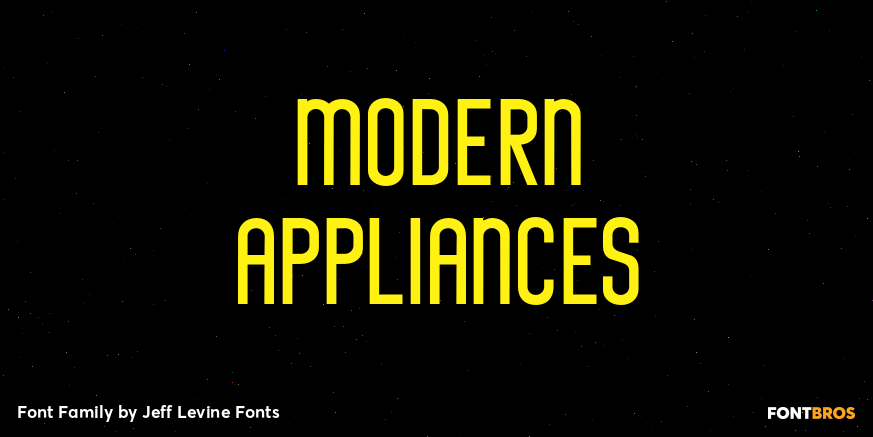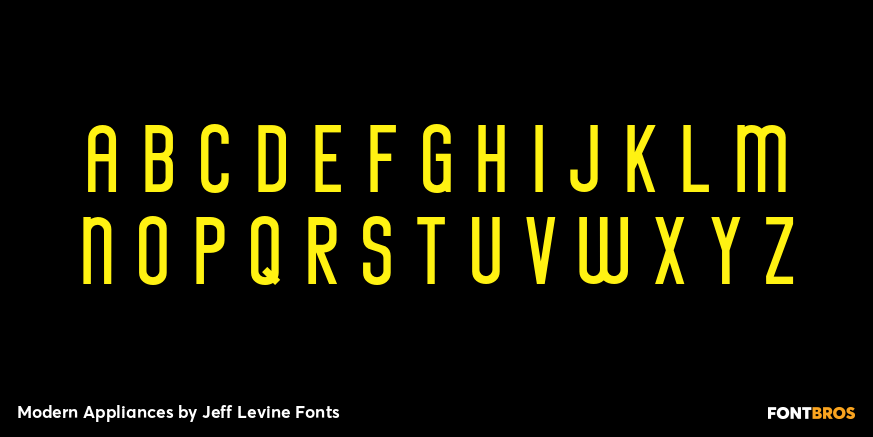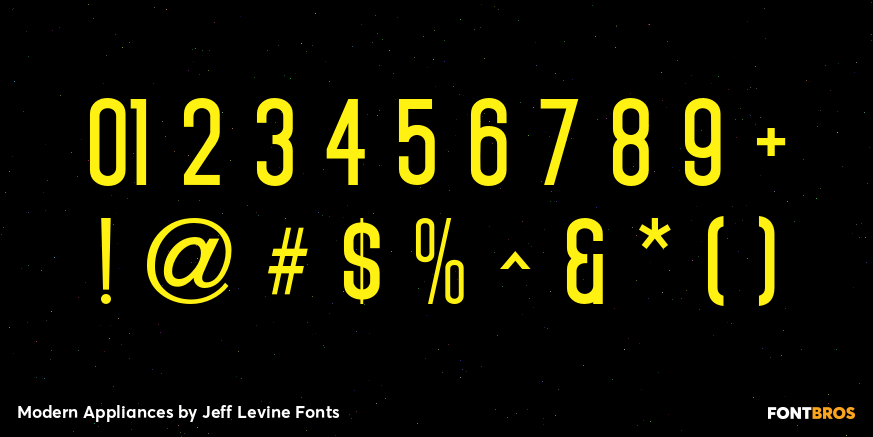
Modern Appliances
If there's a back-story about the design inspiration for Modern Appliances JNL, it's lost to time. An unfinished design for quite a while, this clean sans with an Art Deco flair was recently completed, and the design quality should speak more for its appeal than any promotional blurb.